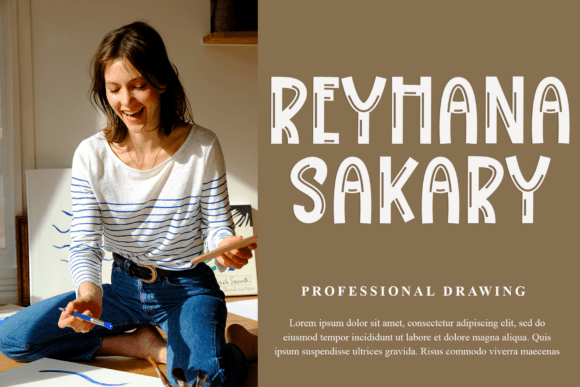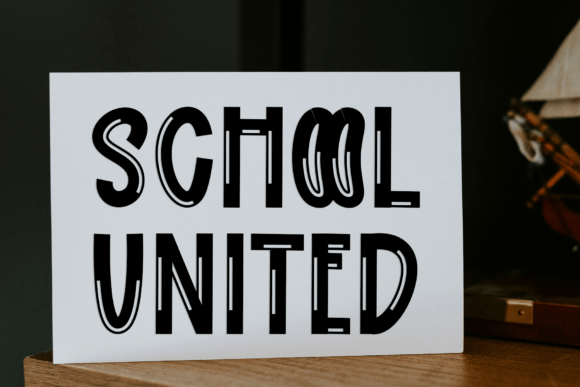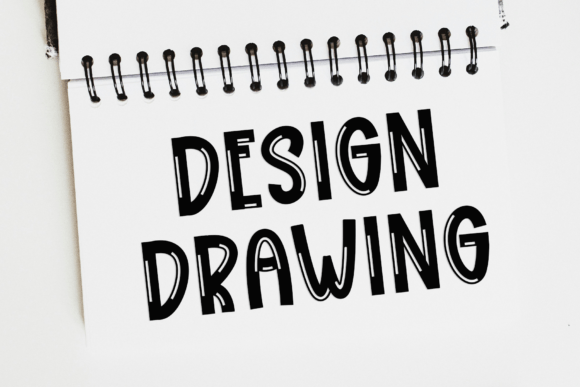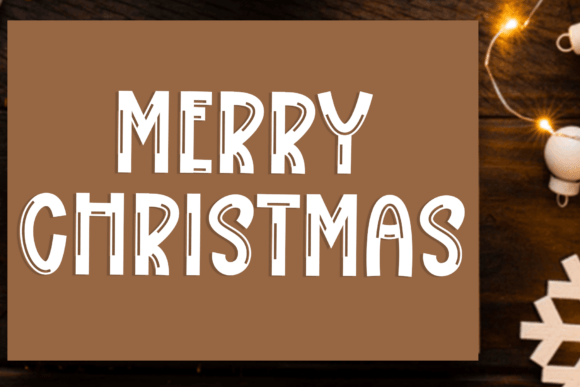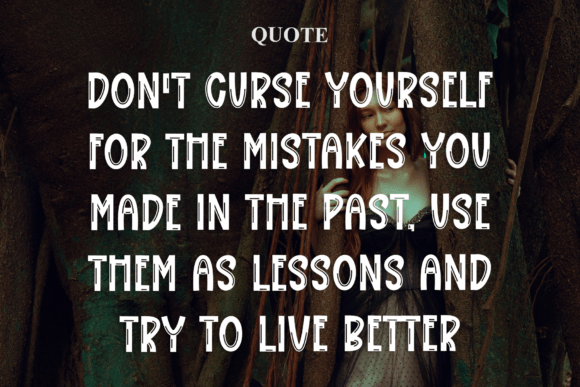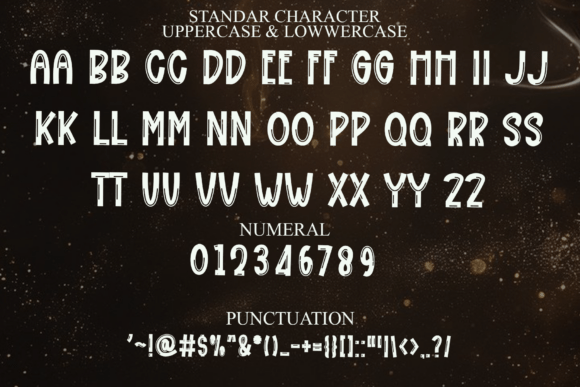
The Magic of Good Day Font: A Festive Holiday Companion
It’s that time of the year again – the holiday season is just around the corner, and with it comes the pressure to create stunning designs that capture the spirit of the festivities. I still remember the year I was tasked with designing a Christmas card for a client’s family gathering. I spent hours scrolling through font libraries, searching for the perfect typeface that would convey the cheer and warmth of the season. That’s when I stumbled upon Good Day Font, a festive and merry typeface that has since become a staple in my design toolkit.
A Personal Review: What I Love About Good Day Font
Good Day Font is more than just a typeface – it’s an experience. With its decorative elements and whimsical flair, it adds a touch of enchantment to any design project. Here are some things I love about Good Day Font:
- ✨ Festive and merry vibe that’s perfect for holiday-themed projects
- 🎉 Whimsical flair that adds a touch of personality to your designs
- 📚 Extensive character set, including support for multiple languages
While Good Day Font is an amazing typeface, there are a few quirks to be aware of:
- 🤔 Some users may find the font a bit too ornate for certain design projects
- ⚠️ Limited support for non-holiday-themed designs, as the font’s festive vibe may not fit with other styles
The Backstory of Good Day Font
Good Day Font was designed by a team of typographers who wanted to create a font that would capture the spirit of the holiday season. Inspired by traditional holiday decorations and vintage typography, Good Day Font is a unique and festive typeface that’s perfect for adding a touch of magic to your designs.
| What is Good Day Font? | Good Day Font is a festive and merry typeface that’s perfect for holiday-themed designs. |
| What type of designs is Good Day Font best suited for? | Good Day Font is perfect for holiday-themed designs, such as greeting cards, gift tags, and decorations. |